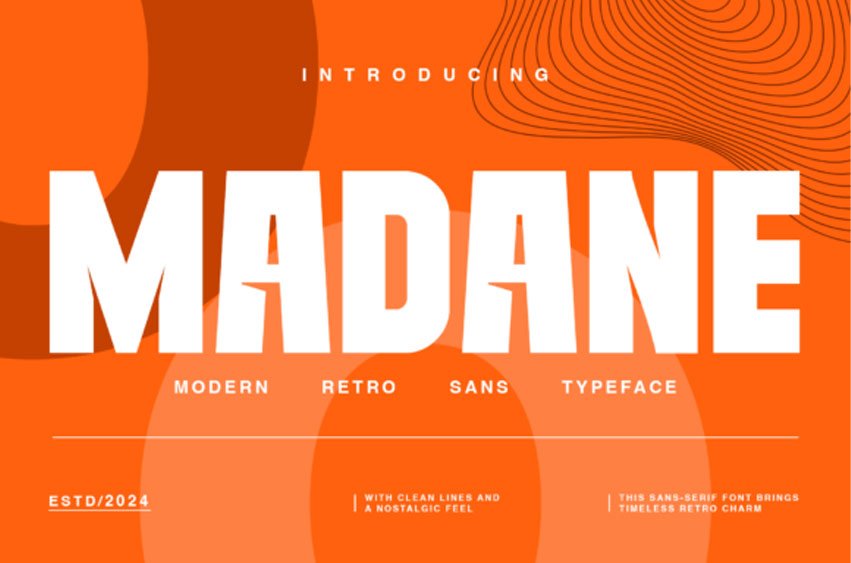
Madane Font is a bold and assertive sans serif font.
No matter the topic, this font will be an incredible asset to your font library, as it has the potential to elevate any creation.